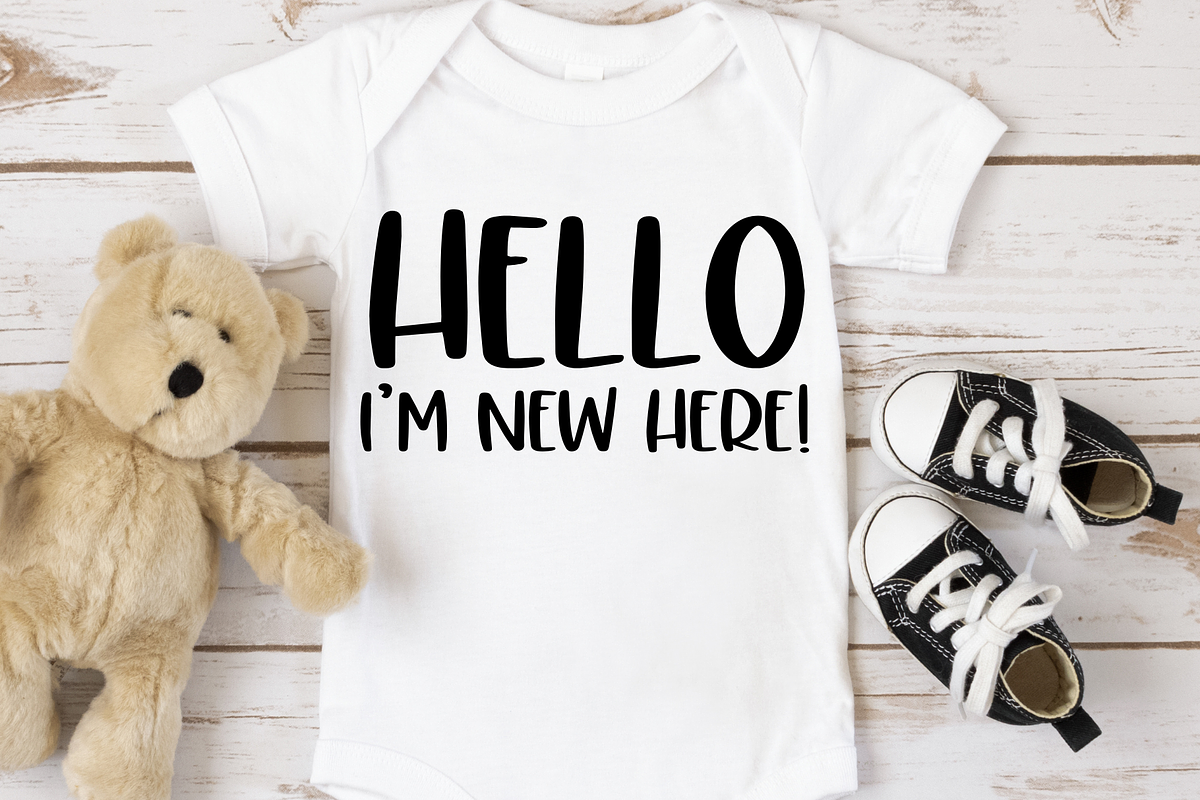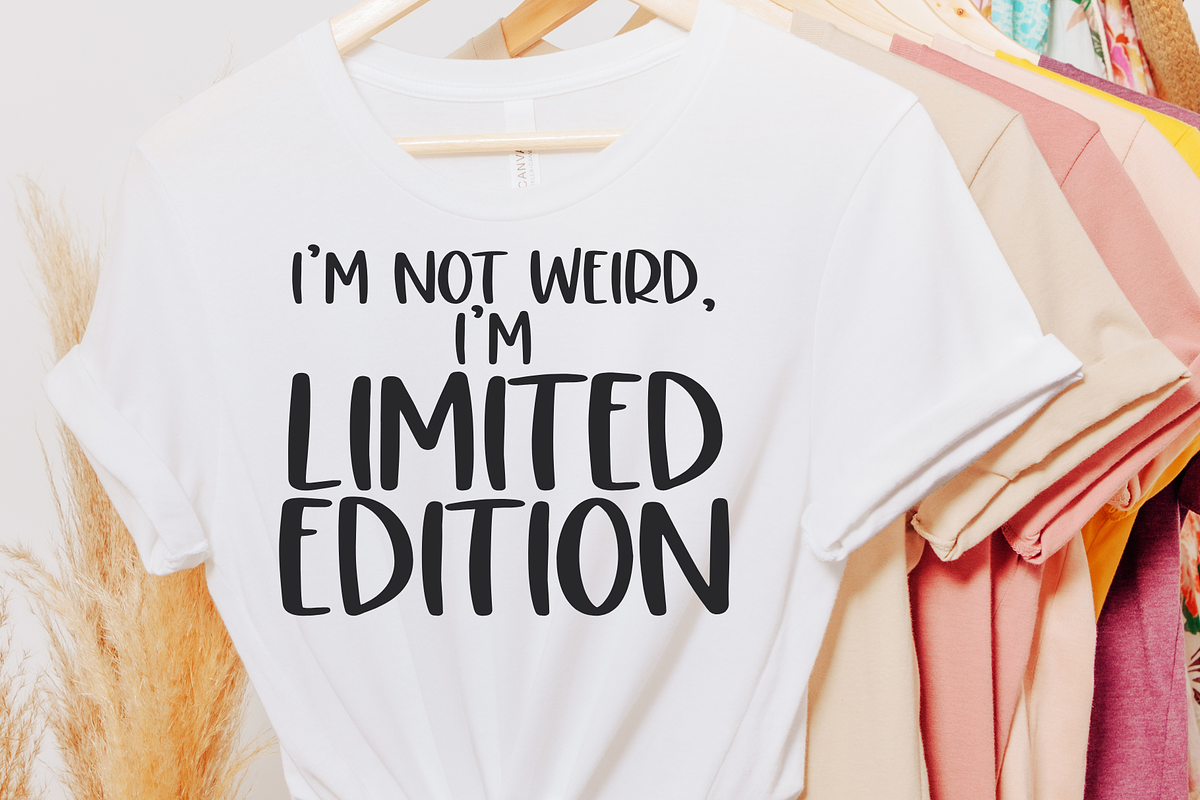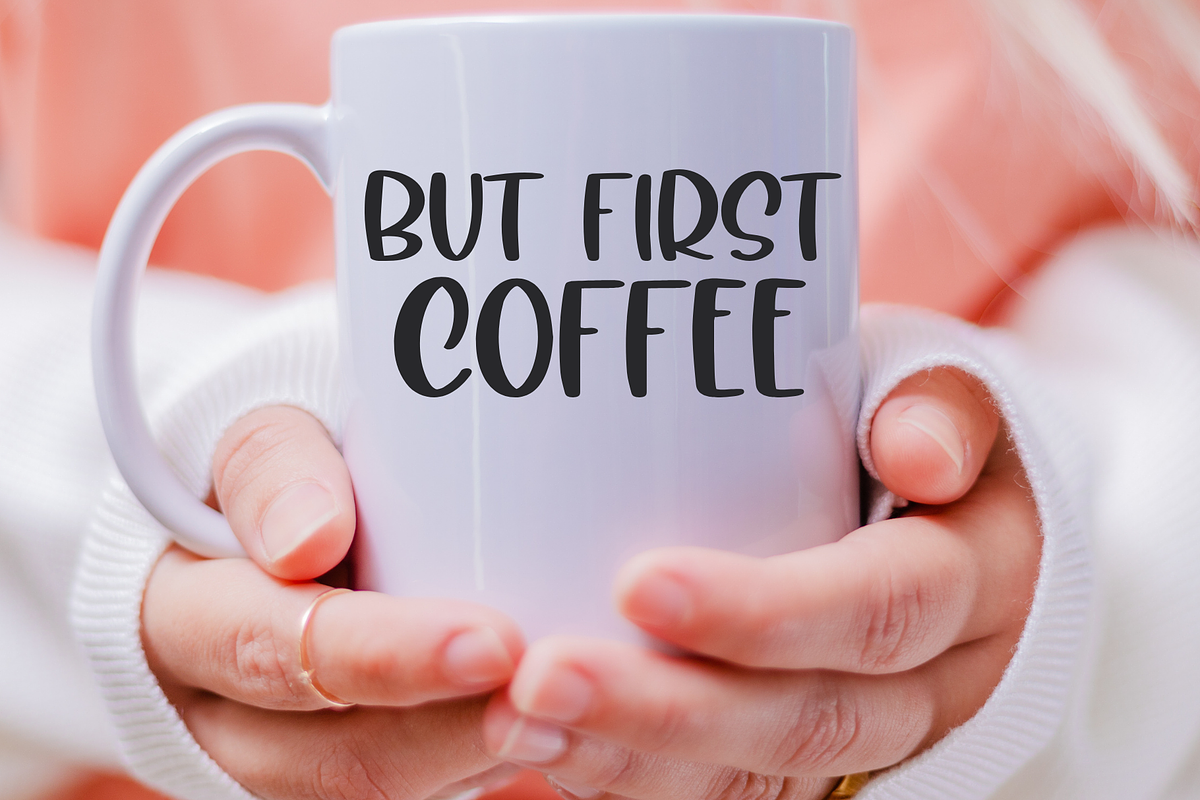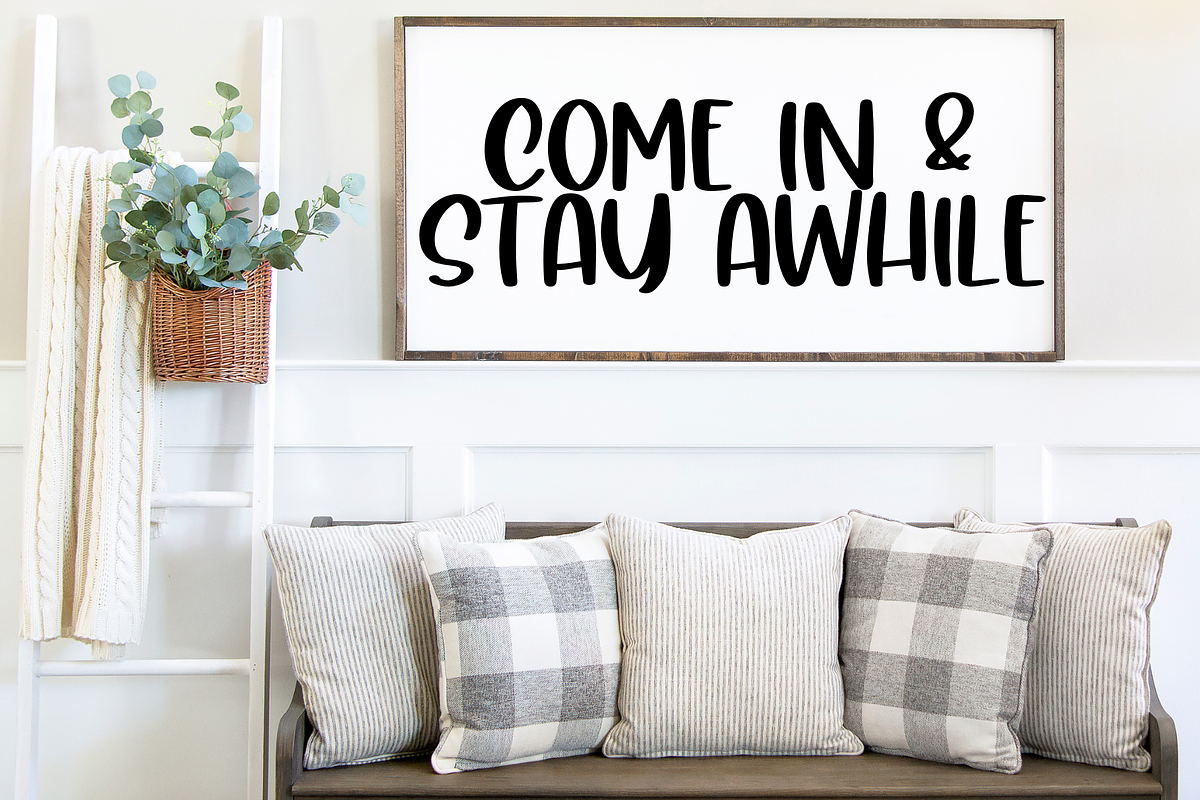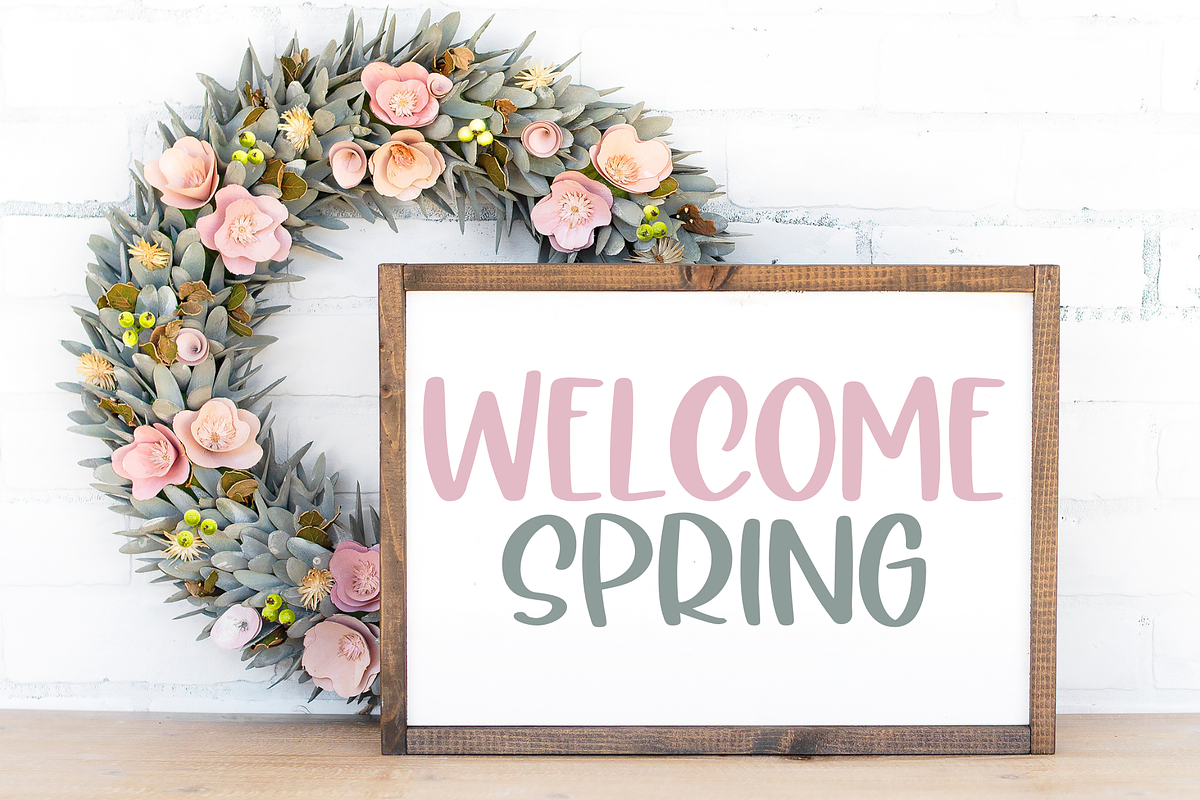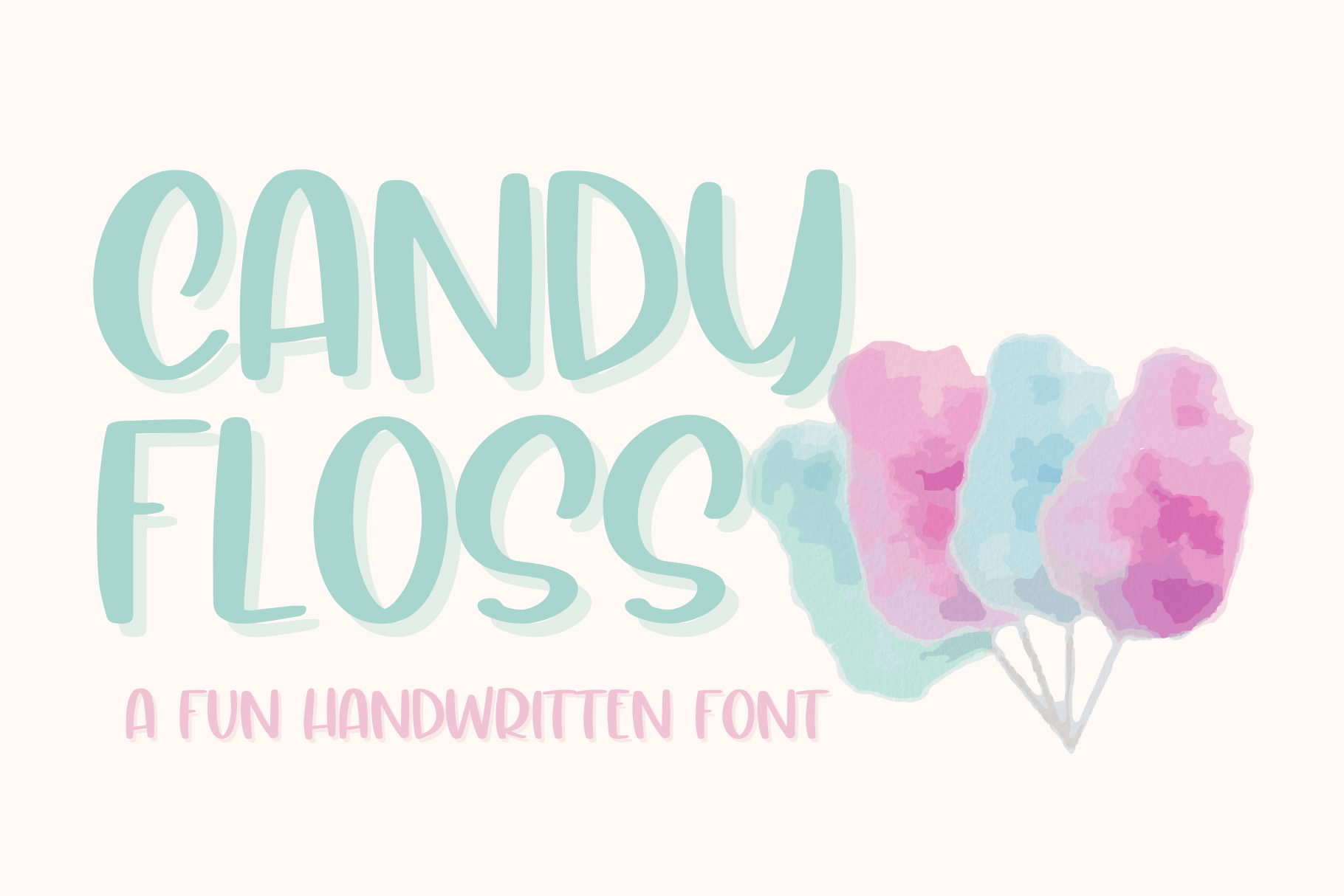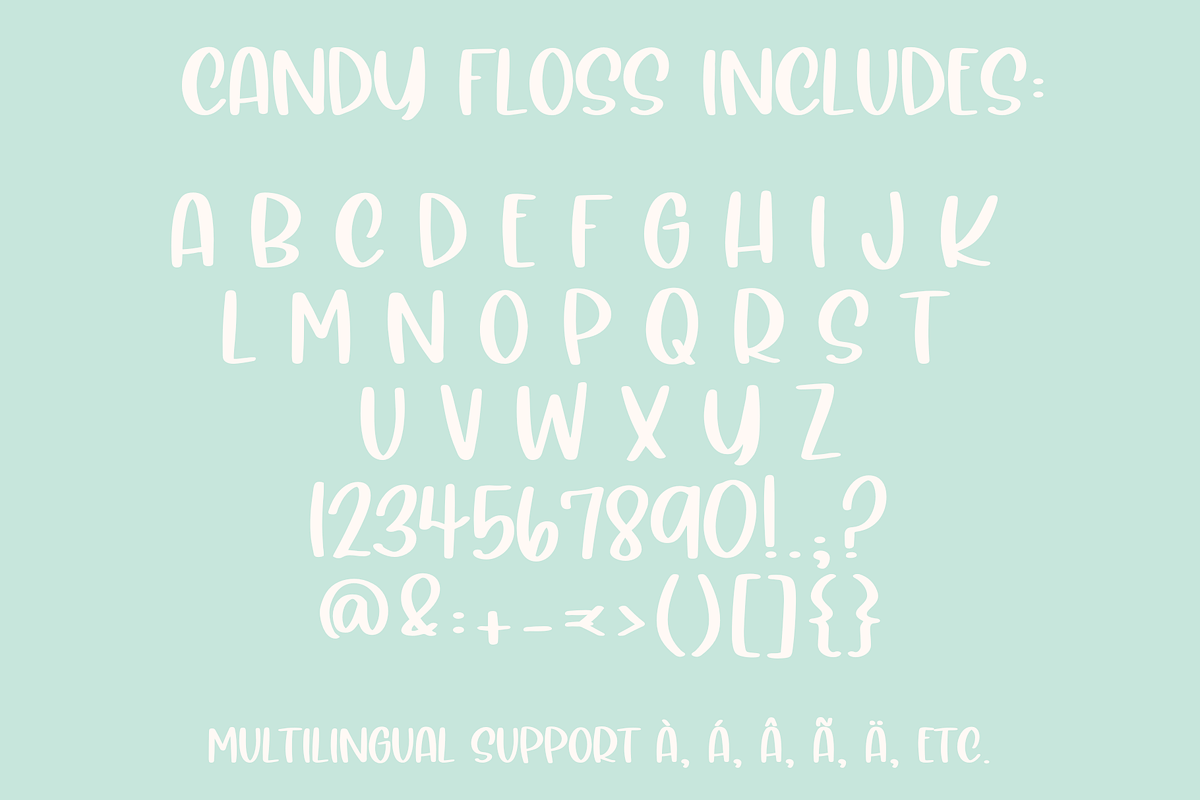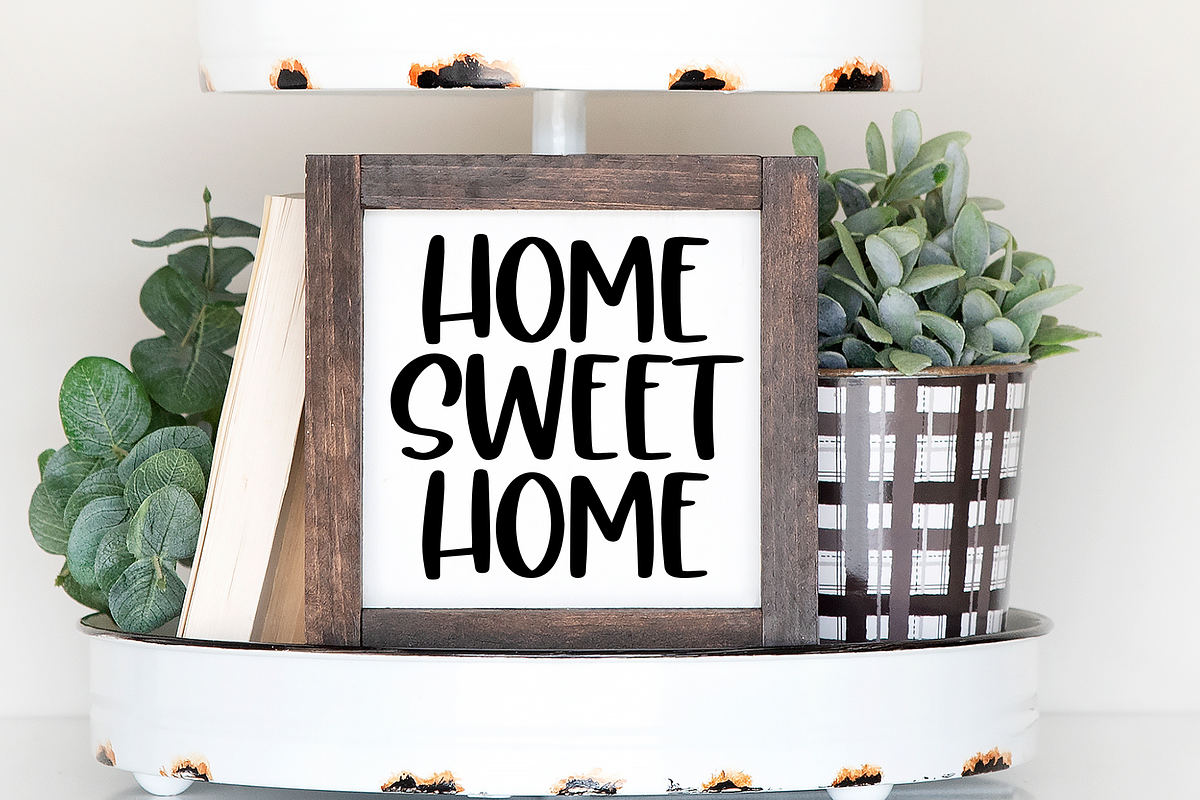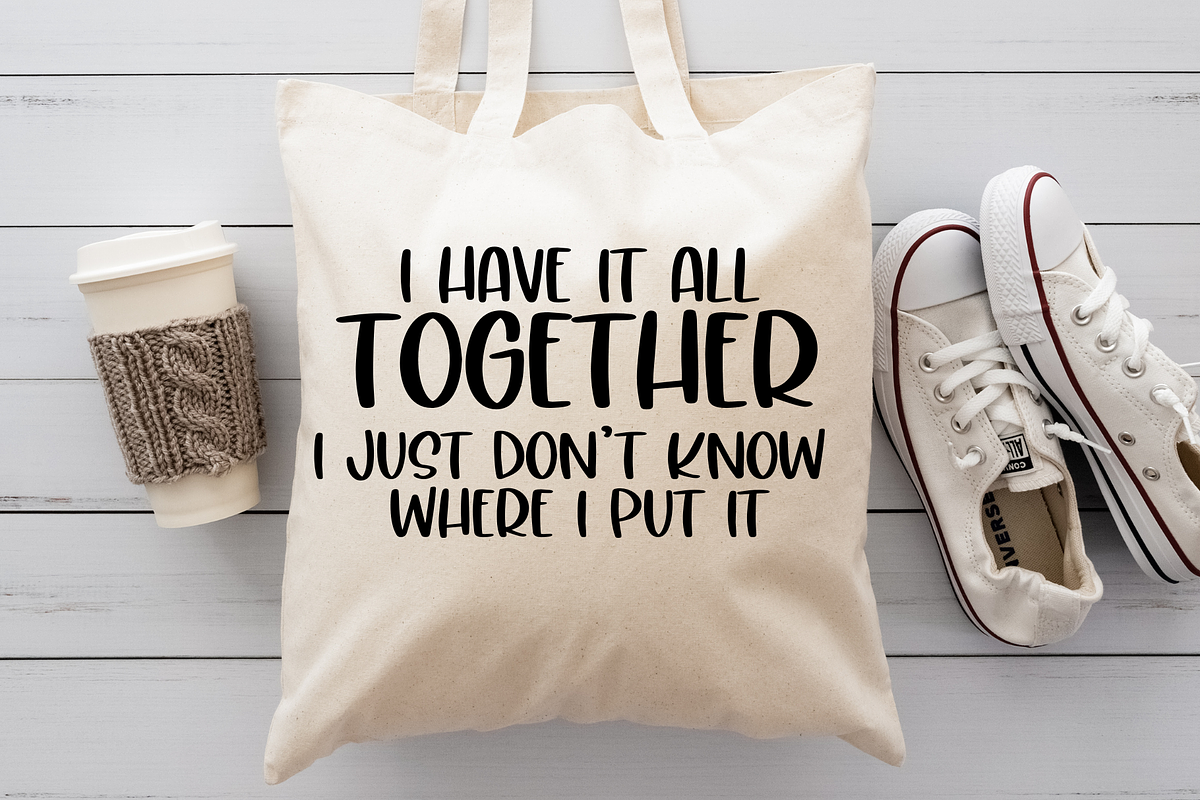
Candy Floss, Cute Handwritten Font
Introducing Candy Floss, fun Handwritten Font for Cricut - a charming and cute addition to your creative projects! This unique font is perfect for all your Cricut designs, making it a must-have for craft enthusiasts. With its playful and fun handwriting style, it adds a touch of whimsy and personality to any project. Whether you're crafting cards, scrapbooking, or designing SVG files, this font will bring your creations to life. Get ready to impress with our amazing Cricut font collection and unlock endless possibilities for your artistic endeavors!